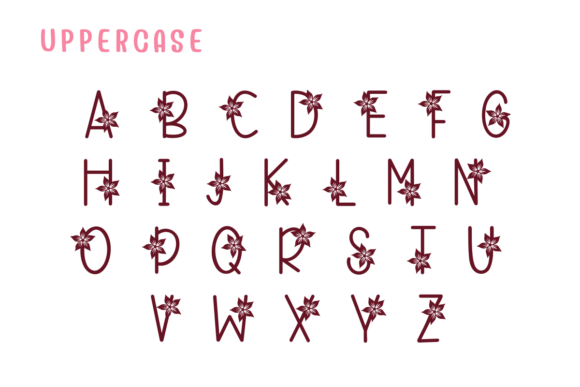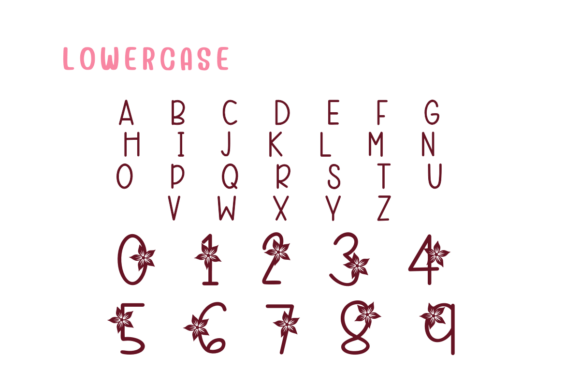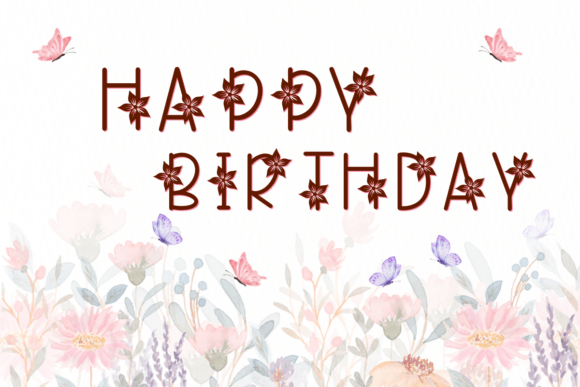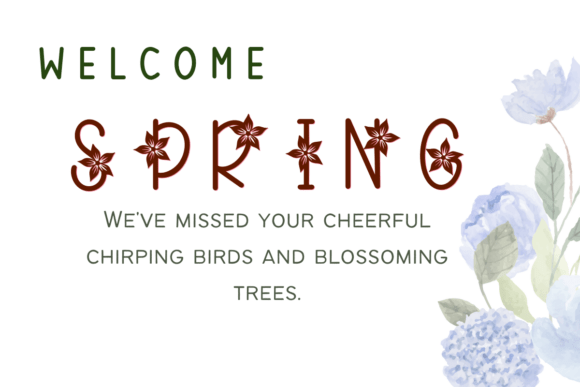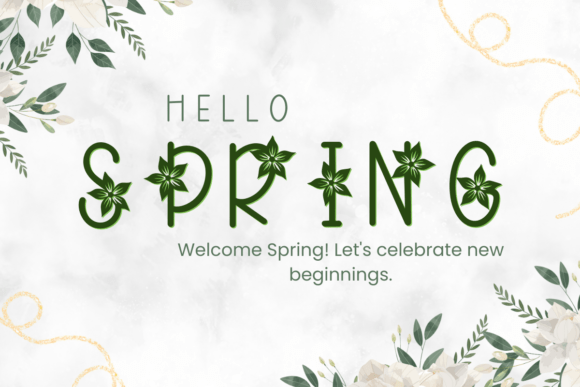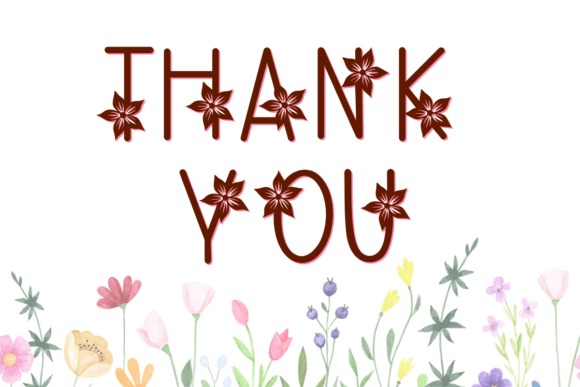
The Blooming Beauty of Floral Spring Font
I’ll never forget the moment I stumbled upon the perfect font for a wedding invitation project. I was on a tight deadline, and my client was adamant about finding a font that would make her special day truly unforgettable. As I scrolled through my font library, I felt like a kid in a candy store – and then, I saw it: Floral Spring Font. The delicate flower accents and elegant lettering made my heart skip a beat. It was love at first sight! 💕
An Honest Review of Floral Spring Font
- ✨ Delicate flower accents that add a touch of whimsy to each letter
- ✅ Perfect for wedding invitations, spring-themed events, garden branding, and romantic quotes
- 💐 Elegant and sophisticated, yet playful and fun
- 🌸 Versatile and easy to pair with other fonts
While Floral Spring Font is a stunning addition to any design project, there are a few things to keep in mind:
- ⚠️ Some letters may be a bit tricky to read at smaller sizes, so be sure to test it out before finalizing your design
- 🤔 Limited use in very formal or corporate designs, as it’s more suited to creative and romantic projects
A Practical Guide to Using Floral Spring Font
- Experiment with the font’s OpenType features, such as glyphs and stylistic alternates, to add more flair to your design
The Story Behind Floral Spring Font
According to the font’s designer, Floral Spring Font was inspired by the beauty of nature and the romance of the spring season. The designer wanted to create a font that would evoke feelings of love, joy, and celebration – perfect for wedding invitations, baby announcements, and other special occasions.
| Font Name | Floral Spring Font |
| Author | PraewDesigns |
Q: Is Floral Spring Font suitable for body text?
A: While Floral Spring Font is stunning, it’s best used as a display font or for short blocks of text. It’s not recommended for long-form body text.